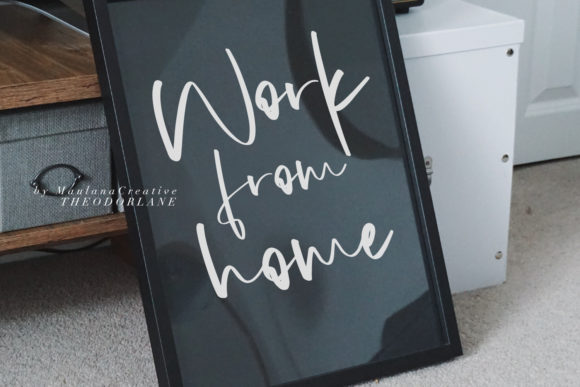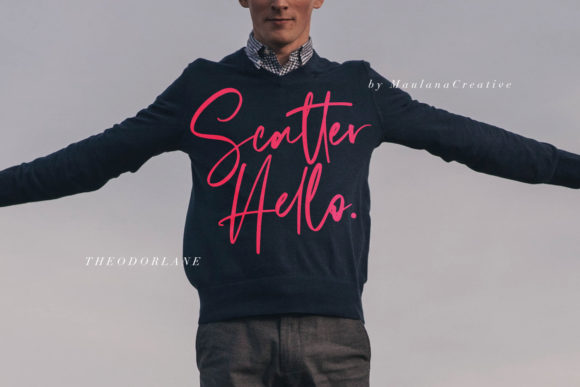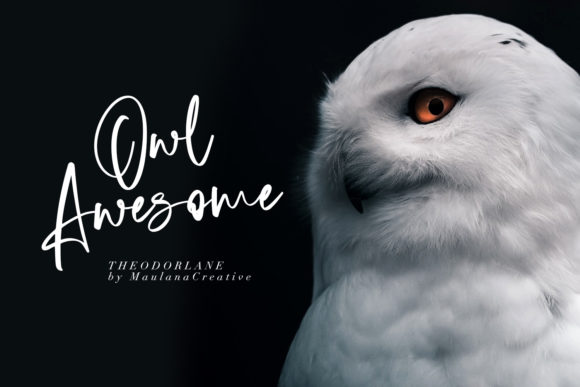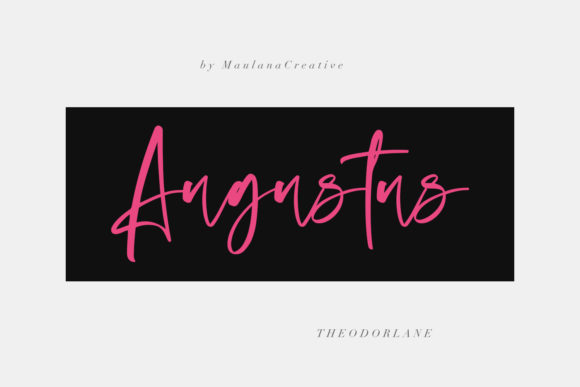
Theodorlane Font
About Theodorlane Font
Theodorlane results out of a stunning pairing of a brush pen and pencil that makes it look incredibly endearing and authentic. Use this gorgeous and unique handwritten font to bring any DIY project to life! This font is perfectly suited for signature, stationery, logos, magazine and book covers, and much more!